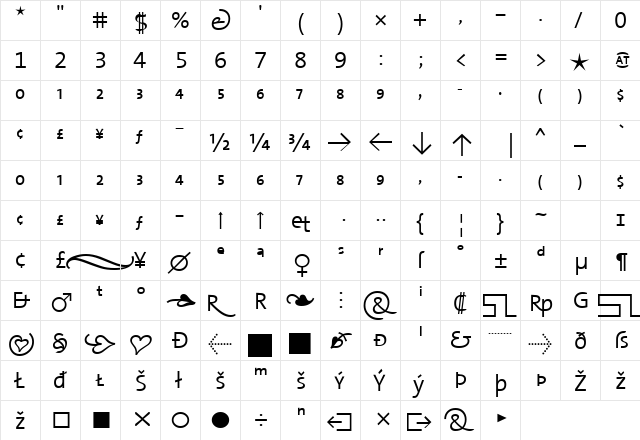
TheSansSemiLight-Expert Regular Font Preview
TheSansSemiLight-Expert Regular
Design Context for TheSansSemiLight-Expert Typeface
TheSansSemiLight-Expert offers clean, dependable letterforms without strong stylistic allegiance, making it a practical choice for designers who need flexibility. Its slender proportions lend an understated elegance to any composition.
Pro Tip: Use TheSansSemiLight-Expert in both headline and body roles to test its range before committing to a single application.